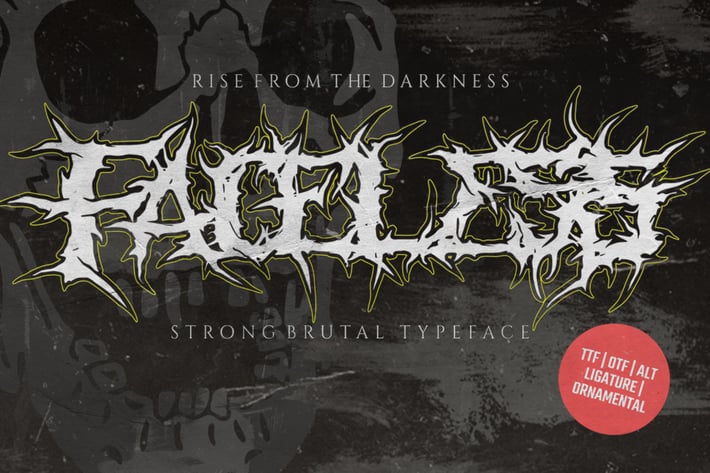
Faceless - Black Metal Typeface
Introducing Faceless black metal Typeface, Rooted, but still readable.
Inspired from Head Bangers, Black Metal and all their culture, recreated and redesign for modern branding.
You can use and enjoy this font for anything from promotional material and metal poster quotes, to product packaging, merchandise and branding projects that need outstanding designs.
And this font perfect for logo, packaging, magazine, poster,Movie title, social media post, ad banner, book cover, poster quotes, advertising.